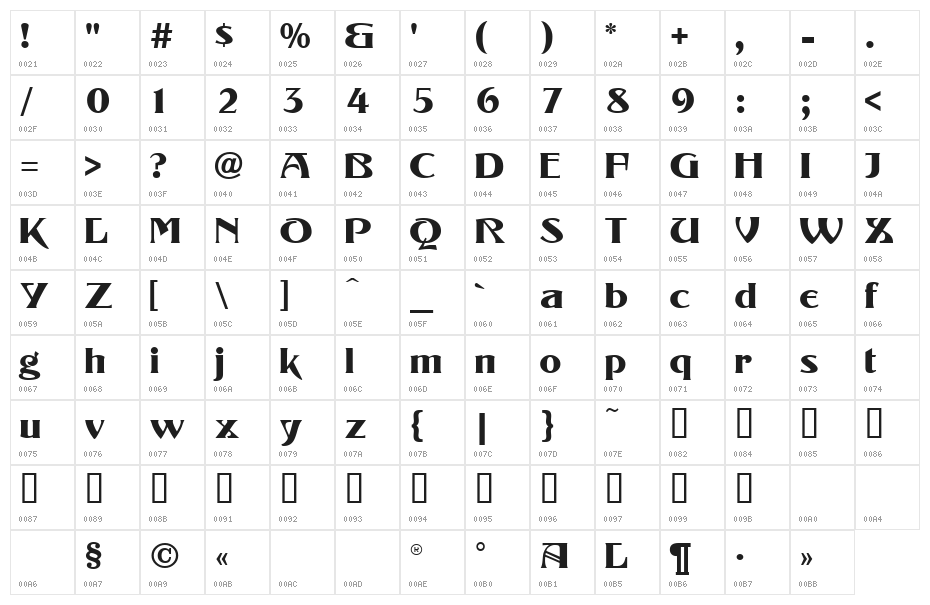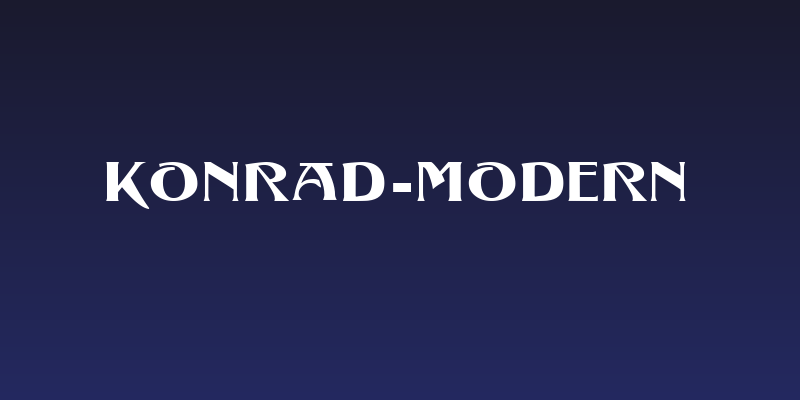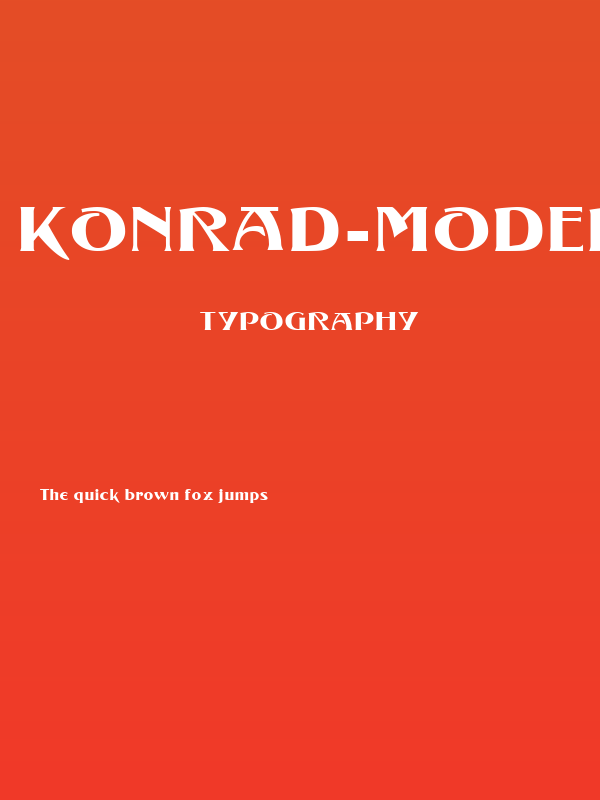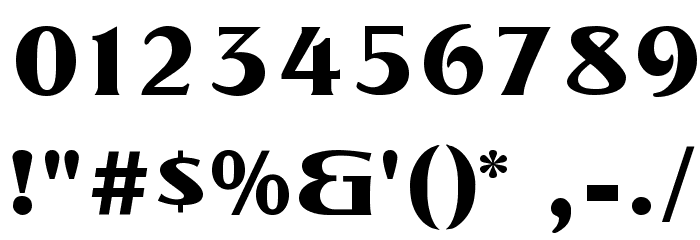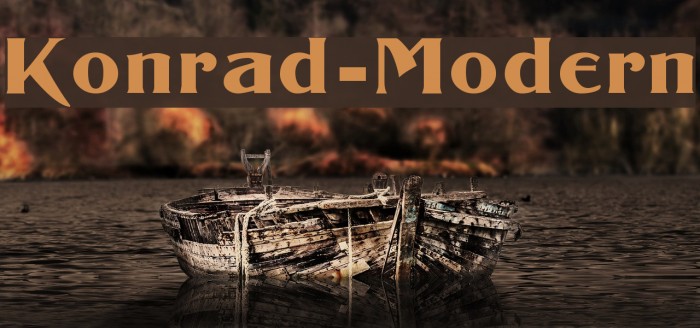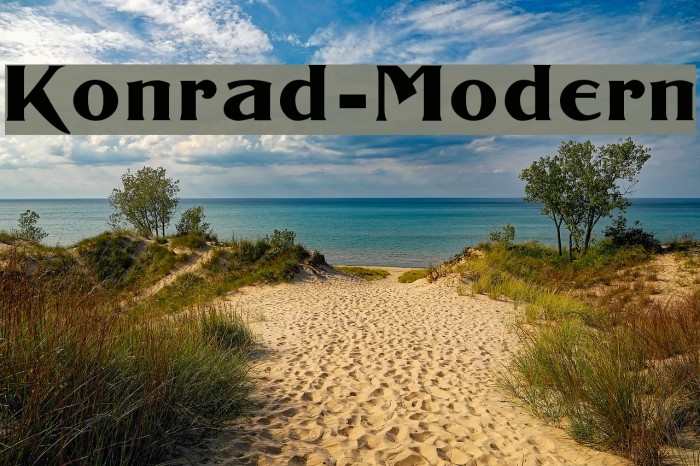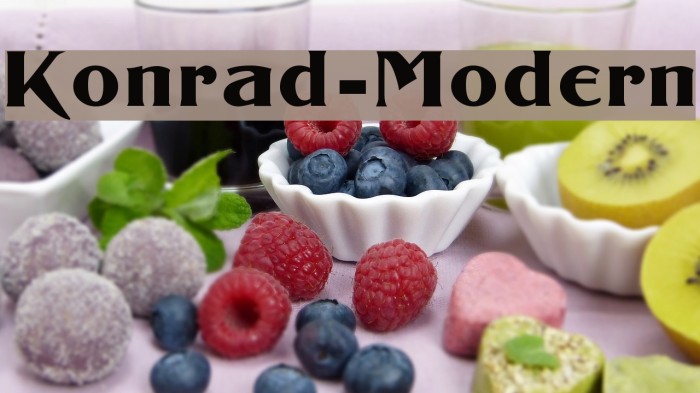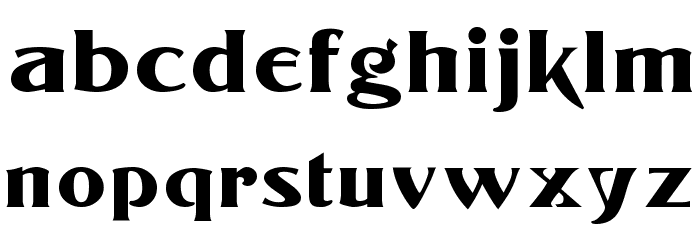
Konrad-Modern Font
Konrad-Modern Description
This font exhibits a bold and striking design with a modern twist on traditional serif elements. The uppercase letters feature sharp, angular serifs that give a sense of strength and stability, while the lowercase letters maintain a consistent weight and style. The numerals are clear and easy to read, with a uniform thickness that complements the overall design. Special characters are well-integrated, maintaining the font's cohesive look. The font's boldness and unique character make it suitable for impactful headlines and branding materials.
| Proposed Projects | Ideal for branding, headlines, posters, and any project requiring a strong visual impact. |